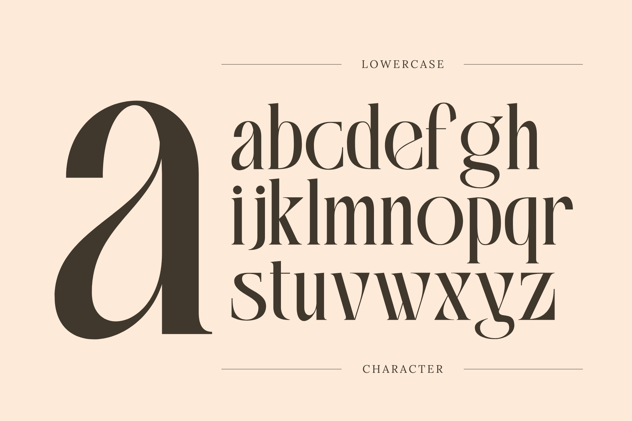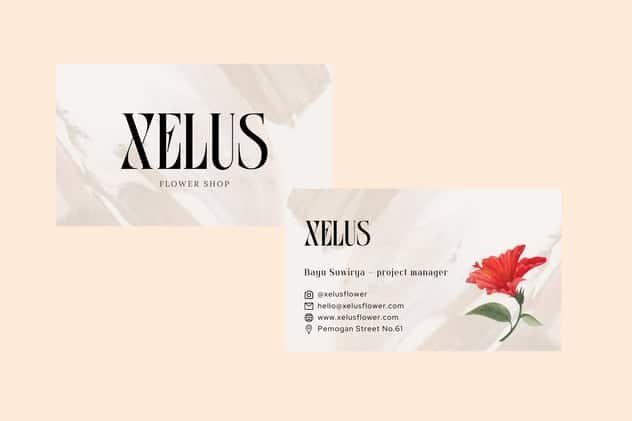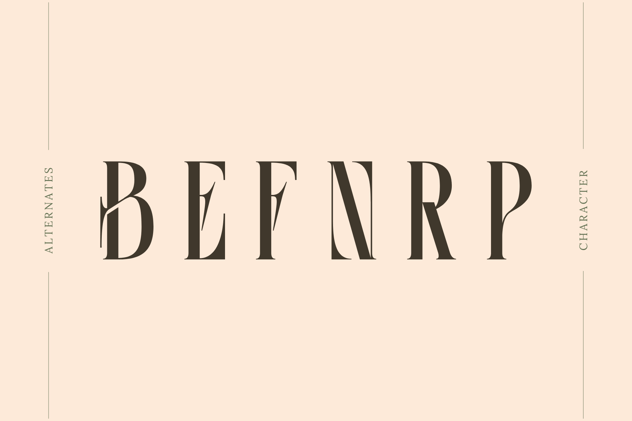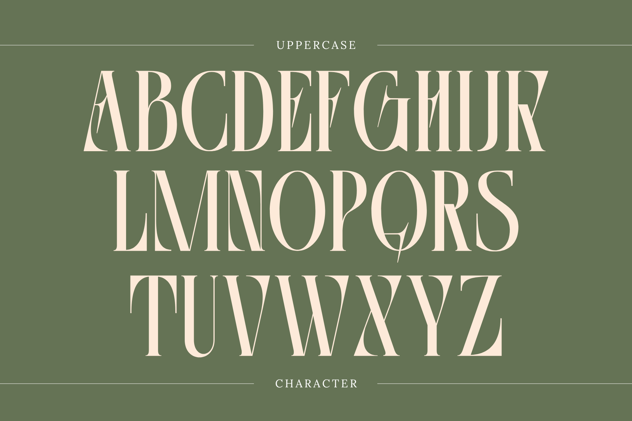
Alqen- Branding Logo Font
Alqen Font offers beautiful typographic harmony for a diversity of design projects, including logos & branding, social media posts, advertisements & product designs.